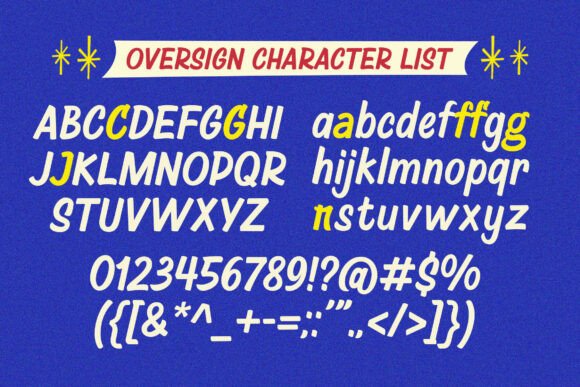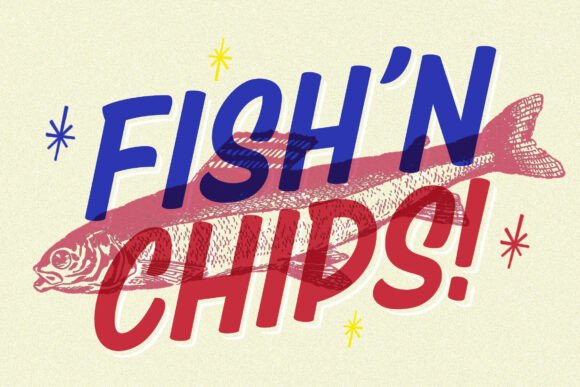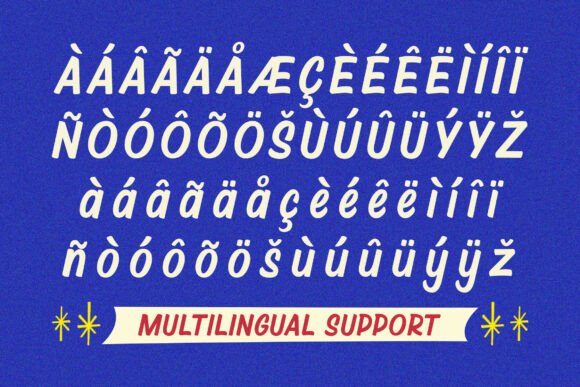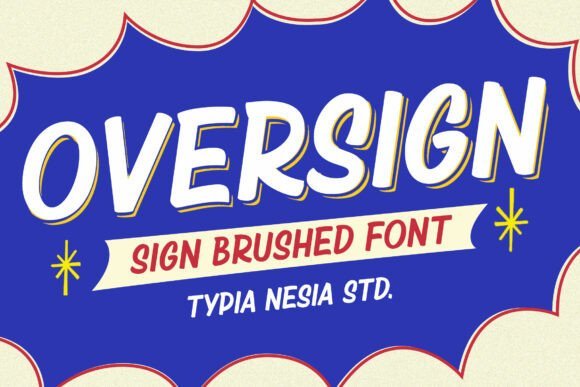
Introduction to Oversign Font
Oversign is a hand-drawn display typeface that masterfully blends a Modern aesthetic with Retro appeal.
With its Bold strokes and casual, friendly appearance, Oversign is perfect for creating high-impact Signage, attention-grabbing Posters, vibrant Advertising materials, Food and hospitality branding, including eye-catching Logos, engaging Menu designs, and lively Packaging Whether you’re designing for a hip Cafe or a classic Restaurant, Oversign immediately communicates a welcoming and down-to-earth vibe.
Key Features of Oversign Font
Why Choose Oversign Font?